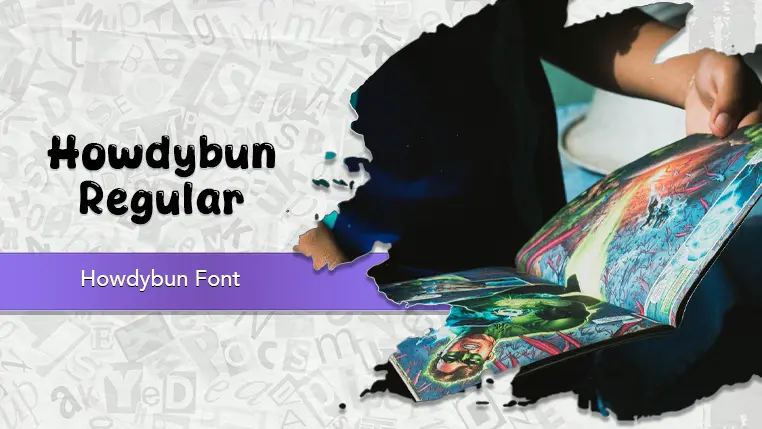
The Howdybun font family may be ideal for you if you enjoy working on an artistic design project. The lively, expressive look of this typeface, which was created by Khurasan, makes it ideal for Children's Media & Entertainment(Titles and headings for children's books, comics, or animated series, Educational materials for young learners (posters, worksheets, flashcards), Branding and packaging for toys, games, or kid-friendly products, Party invitations and decorations for children's birthdays or fun events.), Logos for businesses like ice cream shops, candy stores, bakeries, or cafes with a whimsical theme, Branding for independent creators, streamers, or content producers with a humorous or lighthearted approach. Product packaging for snacks, cereals, or sweet treats. Social media graphics for cheerful, engaging, or meme-style content. Posters and flyers for community events, school functions, festivals, or casual gatherings. and other light-hearted visual projects.
Regular are the one primary font styles of the Howdybun font family. You may build dynamic, visually appealing text layouts with the distinct flair that each style offers. With crisp, readable lines and a relaxed tone.